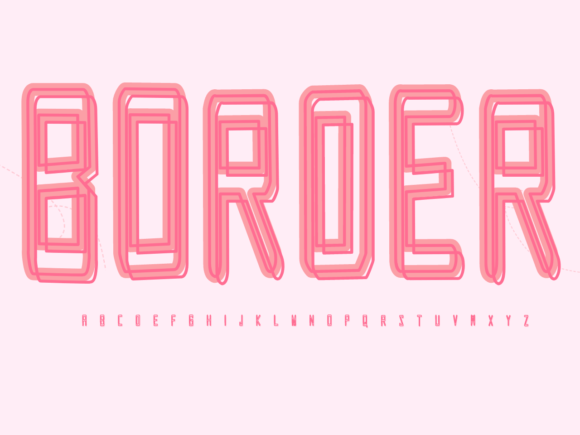
Discover the Joy of Border Font
Remember the excitement of rummaging through a box of colorful markers and stickers as a child, eager to create the perfect birthday card for a loved one? For many of us, the thrill of crafting and self-expression never truly fades. That’s where fonts like Border come in – to help bring our creative visions to life with a dash of playfulness and charm.
Border Font is a delightful, easy-to-read display font that’s perfect for adding a touch of friendliness to any project. Whether you’re crafting handmade cards, designing digital art, or preparing presentations, this font is sure to bring a smile to your face and a sparkle to your designs. As a designer, you’ll appreciate its versatility and the way it elevates even the simplest of ideas into something truly special.
Key Features of Border Font
- Font Family: Border Font is a sans-serif font family that offers a unique blend of modern and vintage styles.
- Character Count: The font family includes over 300 characters, including uppercase and lowercase letters, numerals, punctuation marks, and special characters.
- Unique Characteristics: Border Font features a distinctive border design that adds a decorative touch to text, making it ideal for use in titles, headings, and other display typography.
Border Font Review
Overall, I think Border Font is a decent addition to any designer’s toolkit, but it’s not without its quirks. Here are my honest thoughts.
- Border Font is super easy to use, even for beginners. The interface is clean and intuitive.
- The font is highly customizable, allowing you to tweak the border style, color, and width to your heart’s content.
- It’s great for creating visually striking headings and titles.
- Unfortunately, Border Font can be a bit overwhelming when used in large blocks of text. It’s best used sparingly.
- The font doesn’t play nicely with all browsers, so you may encounter some compatibility issues.
- It’s not suitable for body text, as it can be difficult to read.
While Border Font has its limitations, it’s a fun and creative tool that can add a touch of personality to your designs. With a bit of restraint and planning, it can be a valuable addition to your design arsenal.
Border Font: A Practical Application Guide
Getting the Most Out of Border Font
To get the most out of Border Font, experiment with different border styles, colors, and thicknesses to create unique and eye-catching designs. You can also use border font to highlight important text or create visual interest in your designs.
Border Font is commonly used in graphic design, digital art, and presentations to add visual interest and create a professional look. It can be used to highlight important text, create a sense of hierarchy, or simply to add a touch of creativity to your designs.
Alternatives to Border Font
Didot is a classic serif font that works well for body text and headings. It has a subtle flair to its letterforms, making it suitable for formal and elegant designs. When to use: luxury brands, high-end publications, or designs that require sophistication.
Compared to Border Font, Didot has a more refined and elegant feel, making it a better choice for formal designs. While Border Font is more playful and informal, Didot exudes a sense of luxury and sophistication.
Playfair Display is an elegant and luxurious serif font that is perfect for headings and titles. It has a classic feel with a touch of opulence, making it suitable for high-end designs. When to use: luxury brands, weddings, or designs that require a touch of elegance.
Q: Are there any limitations to using Border Font?
Yes, there are several limitations to using Border Font. For example, it may not be suitable for small font sizes or for fonts with complex characters. Additionally, it may not be compatible with all operating systems or browsers. It’s also worth noting that Border Font can be computationally